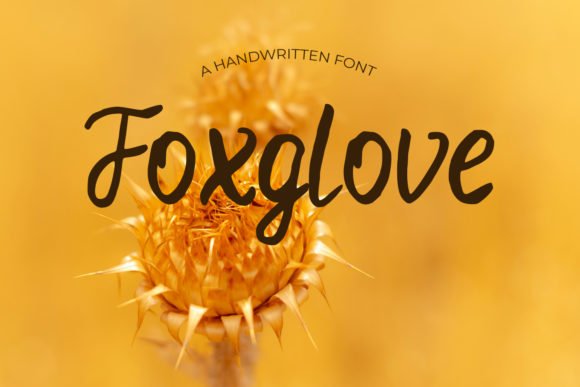
Discover the Timeless Charm of Foxglove Font
As designers, we’ve all been there – staring at a blank page, struggling to find the perfect font to bring our creative vision to life. And then, like a breath of fresh air, it happens: the perfect combination of style and substance that elevates our work from good to great. For us, that moment often involves the elegant script of the Foxglove Font, a contemporary classic that exudes timeless sophistication and refinement.
With its impeccable form and balanced, varied strokes, Foxglove Font is the perfect choice for designers seeking to add a touch of classic elegance to their projects. Whether you’re working on a high-end branding project, a wedding invitation, or a beautifully crafted blog post, this font is sure to enhance the beauty and sophistication of your work, making it a valuable addition to any designer’s toolkit.
Foxglove Font Key Features
- Font Family: Foxglove
- Font Size: Supports font sizes from 8pt to 120pt, with precise control over font scaling
- Resolution: Designed for high-resolution displays, including Retina and 4K screens, with a minimum resolution of 300 DPI
- Unique Characteristics: Features a unique blend of modern and vintage elements, with intricate details and ornate flourishes
Designer Review: Foxglove Font
Overall, I’d say Foxglove Font is a unique and captivating addition to any design project. ✨ Its quirky, hand-drawn style adds a touch of personality and whimsy that’s hard to find in more generic fonts.
The font’s irregularities and subtle imperfections make it feel more human and less robotic, which can be a breath of fresh air in a world of overly polished digital fonts. ✨ The bold weights and distinctive letterforms make it perfect for titles, headings, and any other situation where you want to make a statement.
- ⚠️ Legibility can be an issue in smaller text sizes, as some of the letterforms can become quite ornate and difficult to read.
- ⚠️ The font’s quirky style may not be suitable for all projects or audiences, as it can come across as overly playful or even childish in certain contexts.
Overall, I think Foxglove Font is a great choice for designers who want to add some visual interest and personality to their work. While it may have some limitations, its unique style and versatility make it a valuable addition to any design toolkit.
Practical Application Guide for Foxglove Font
Getting the Most Out of Foxglove Font
Use Foxglove Font for titles, headings, and other prominent text elements to add a touch of elegance to your design. Experiment with different font sizes and colors to create a visually appealing effect.
Use Foxglove Font for: wedding invitations, luxury brand logos, high-end product labels, and other designs that require a sophisticated and refined look.
Alternatives to Foxglove Font for Designers
Carolyna Pro is a elegant script font that works well for invitations, wedding stationery, and other formal designs. It features a classic, sophisticated look with a touch of whimsy.
Compared to Foxglove Font, Carolyna Pro has a more refined and polished feel, making it suitable for high-end designs. It also has a wider range of weights and styles, offering more versatility for designers.
Great Vibes is a modern script font that exudes a carefree, bohemian vibe. It’s perfect for designs that need a touch of playfulness and creativity, such as music festivals, travel, or lifestyle brands.
Unlike Foxglove Font, Great Vibes has a more relaxed and casual feel, making it ideal for designs that require a sense of freedom and adventure. It also has a more extensive range of ligatures and swashes, adding to its unique charm.
Alex Brush is a beautiful, handwritten font that works well for designs that require a personal and emotive touch. It’s suitable for branding, packaging, and advertising designs that need to convey a sense of warmth and approachability.